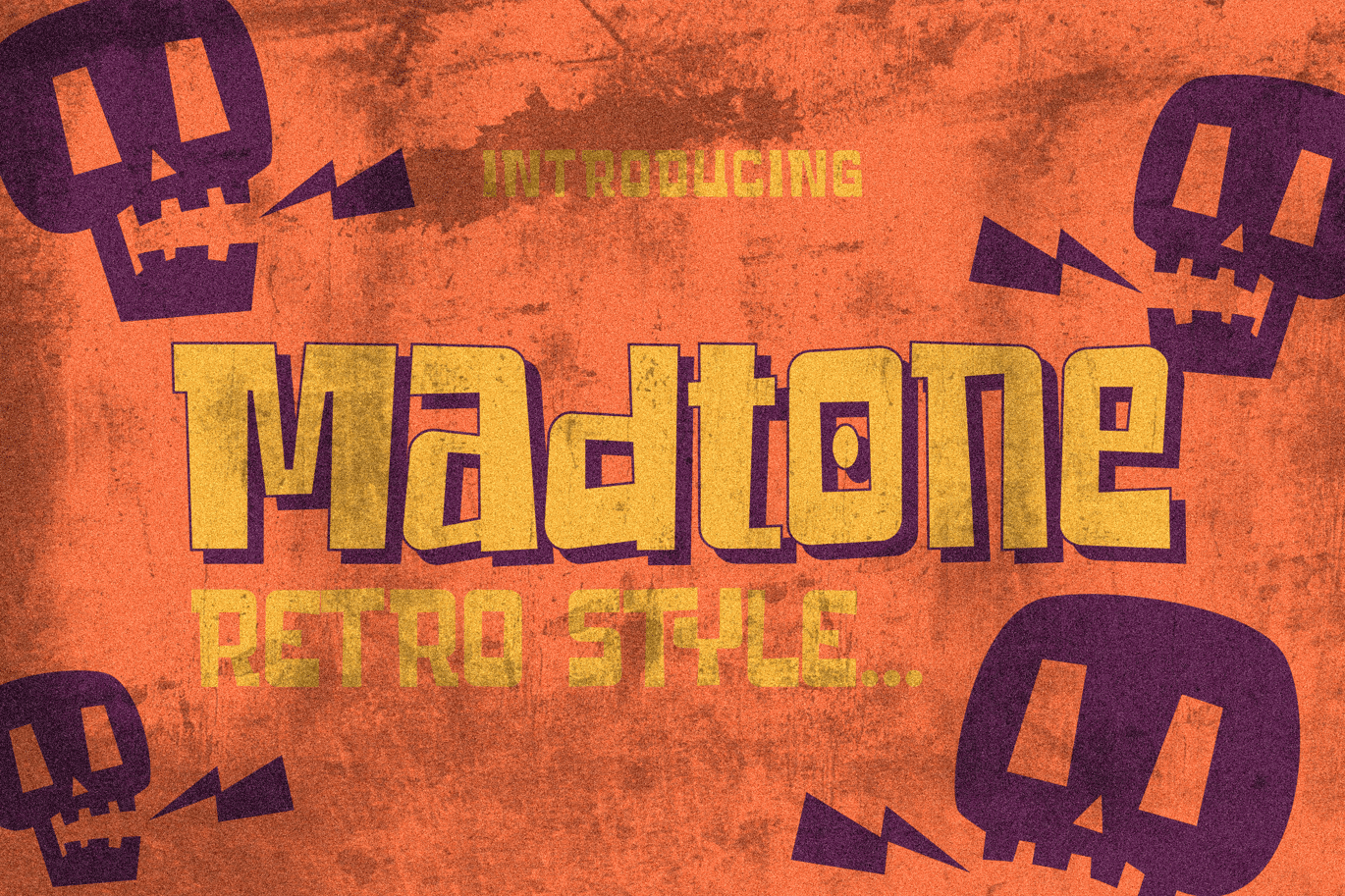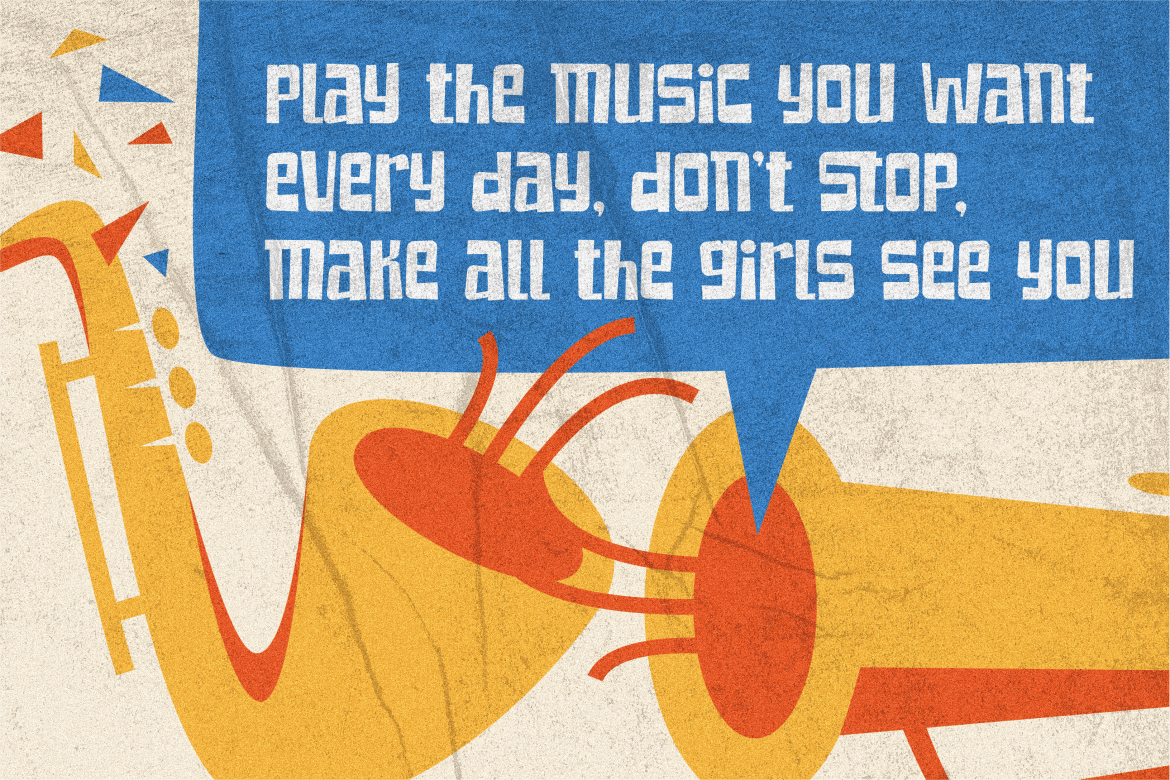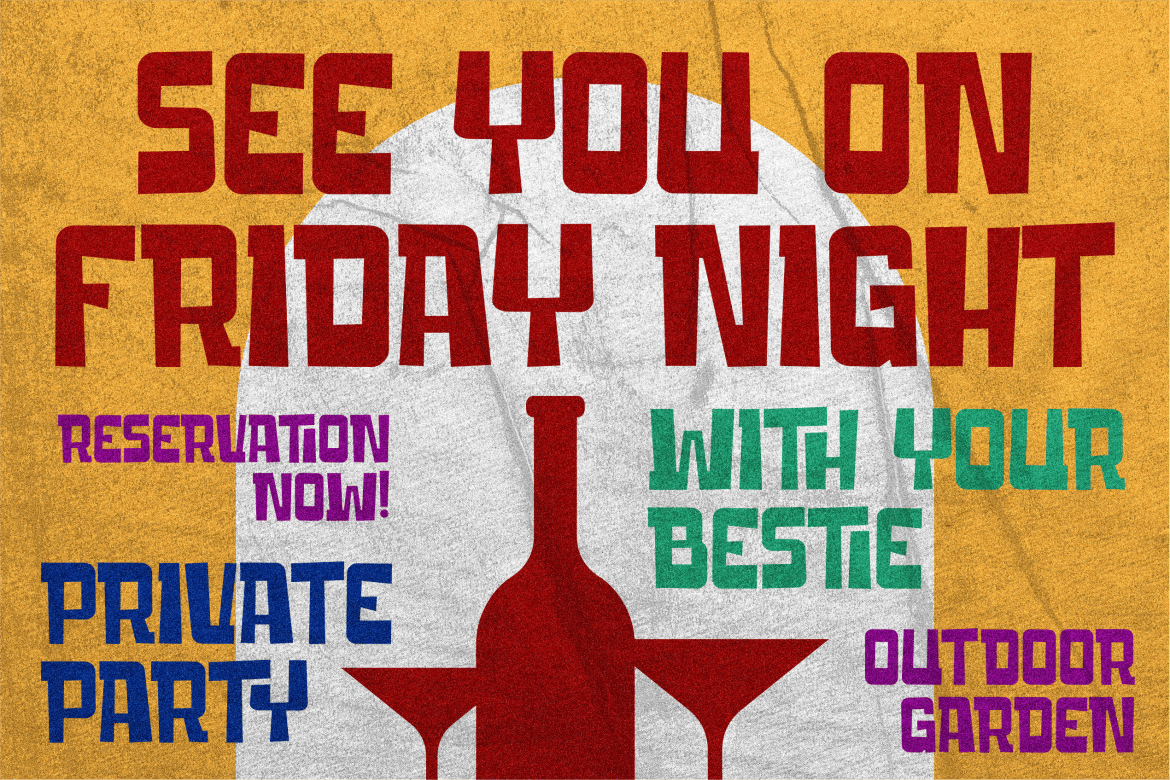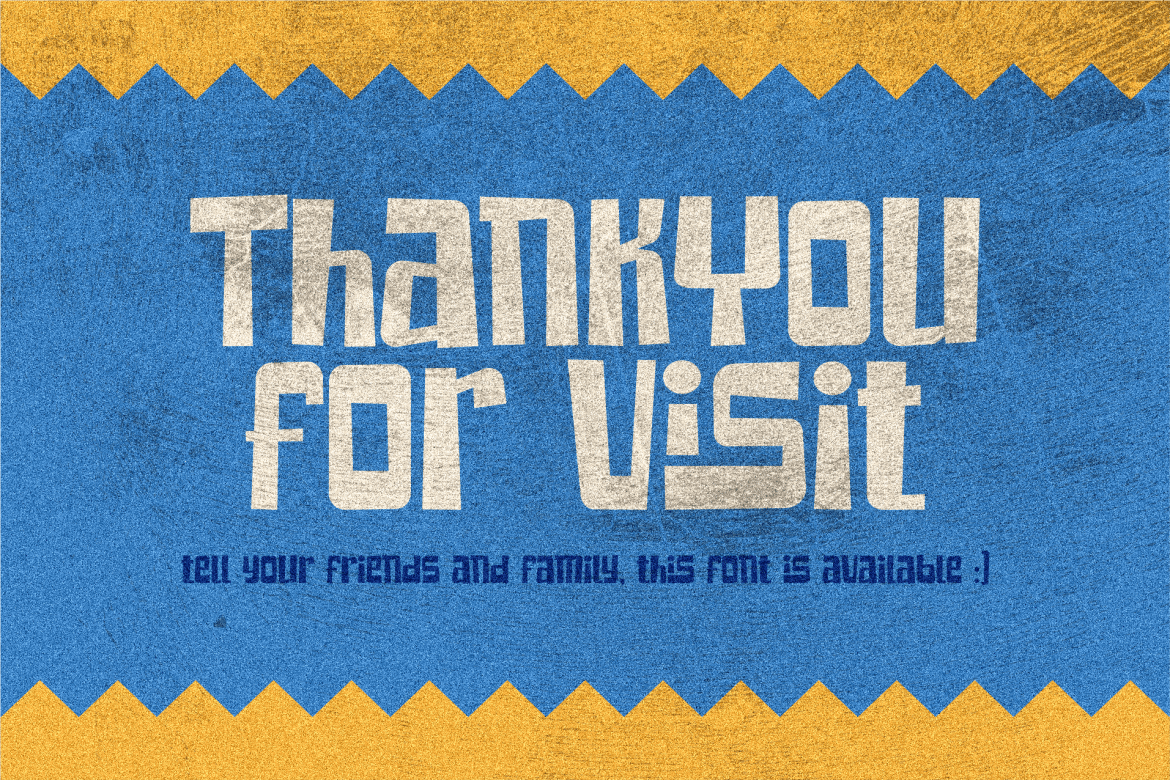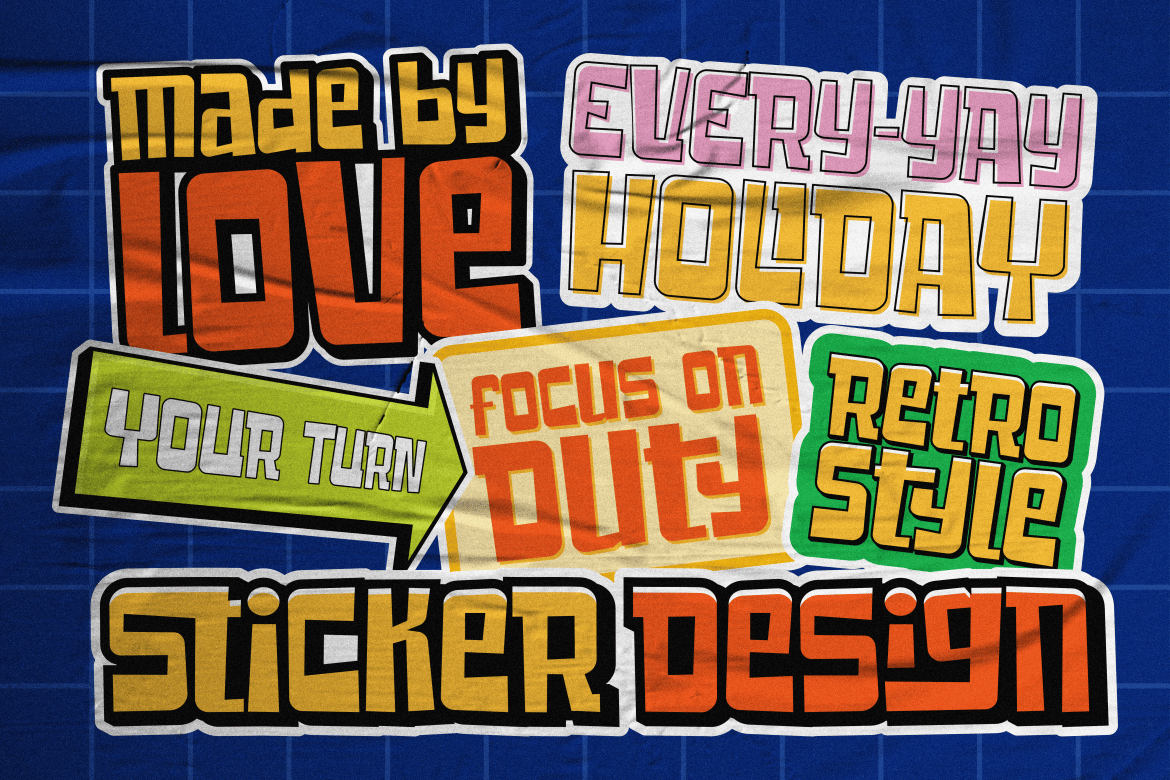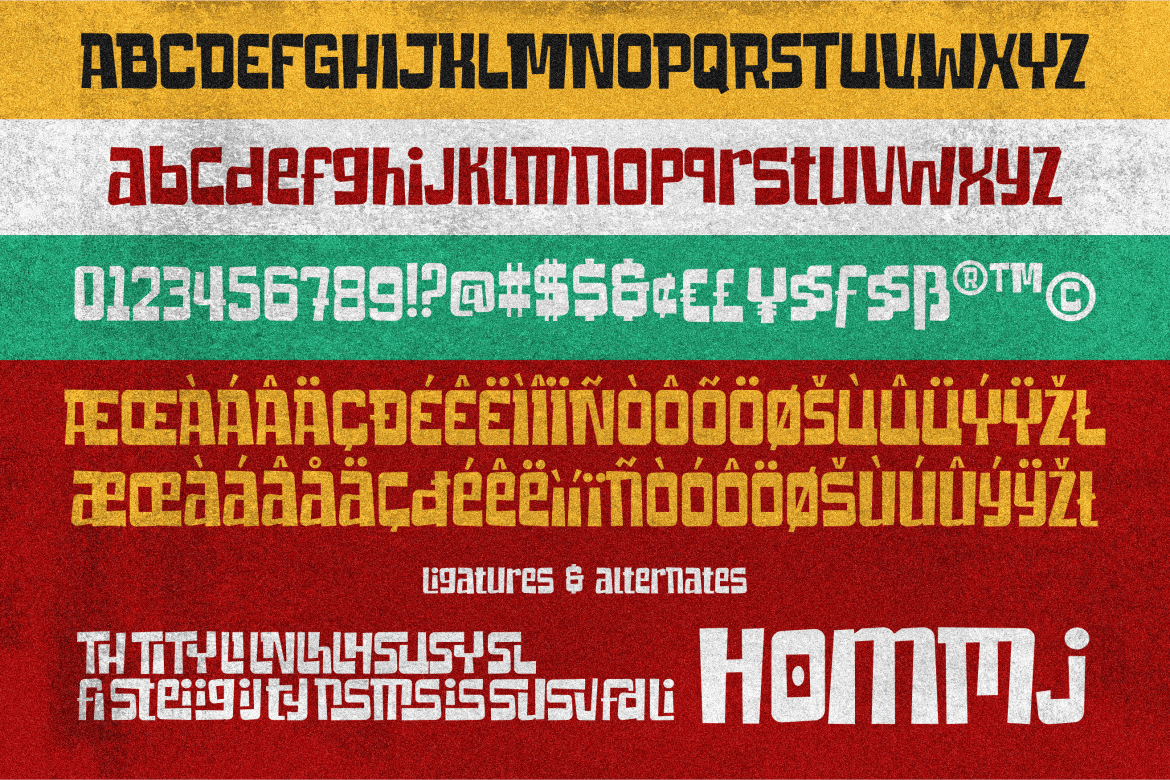
Madtone Retro Font
Madtone is a cartoon style font, with irregular but conceptualized thickness and thinness. Perfect for font logos, movie titles, movie posters, festival posters and other designs.